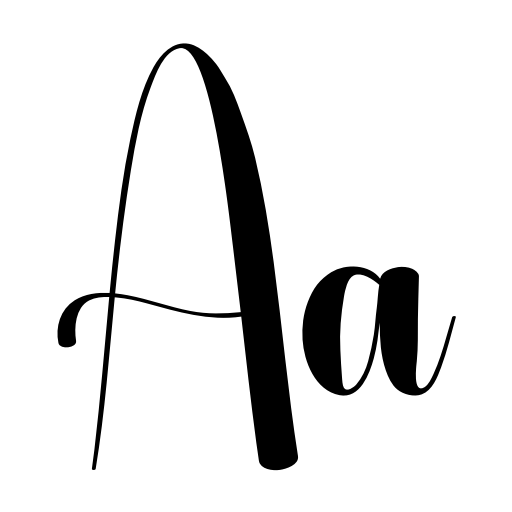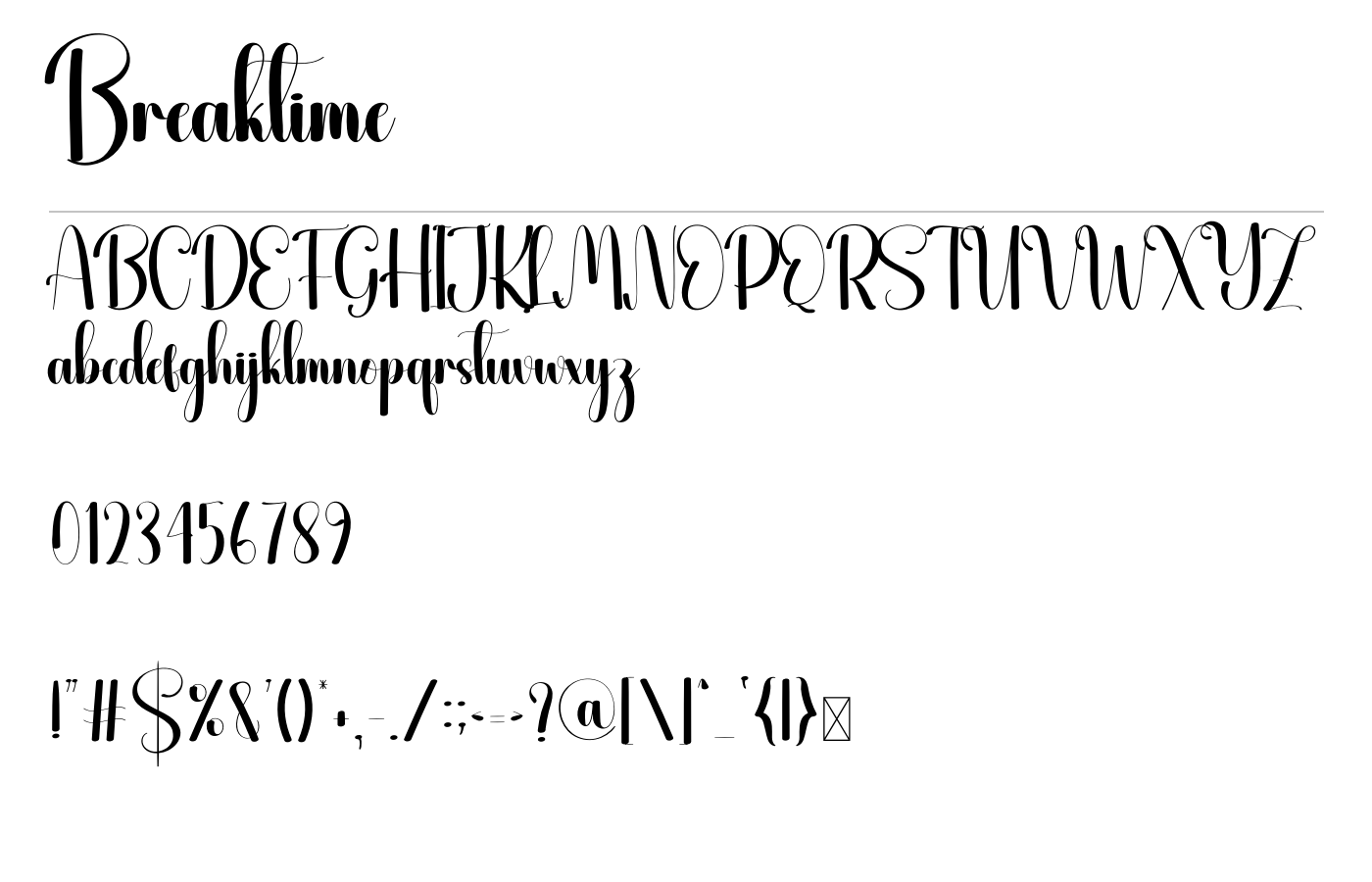
Breaktime is an elegant script font with a playful yet refined personality. Its tall, slender letterforms blend thick and thin strokes with delicate flourishes, making it perfect for stylish invitations, branding, and headlines that need a personal, sophisticated touch. This font works beautifully where a modern, artistic feel is desired without sacrificing readability.
Breaktime Font
About Breaktime Font